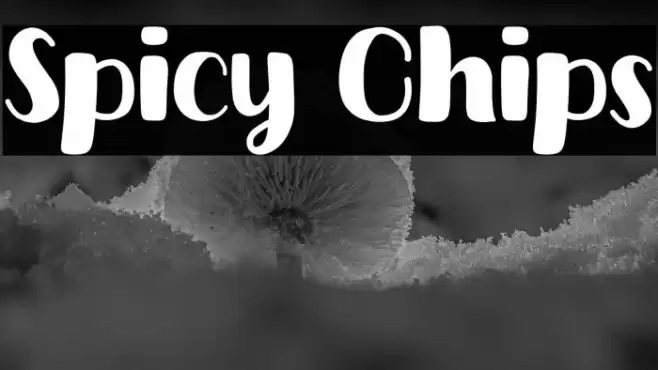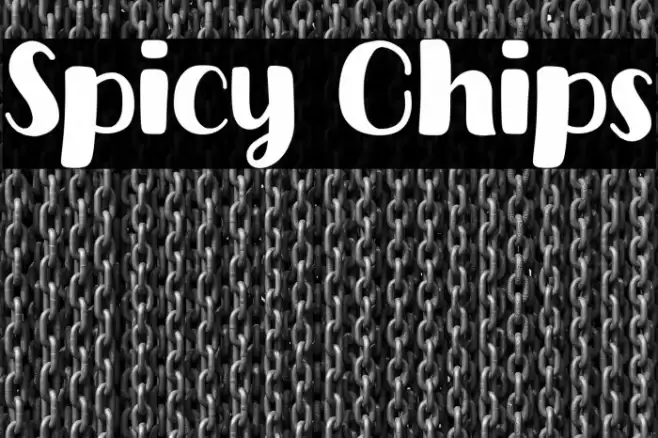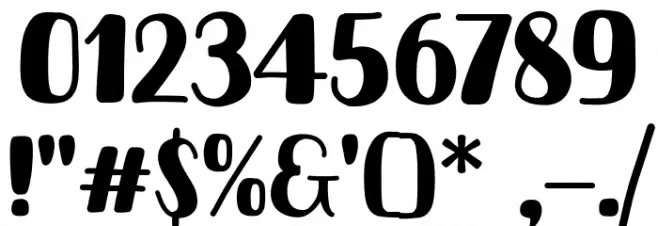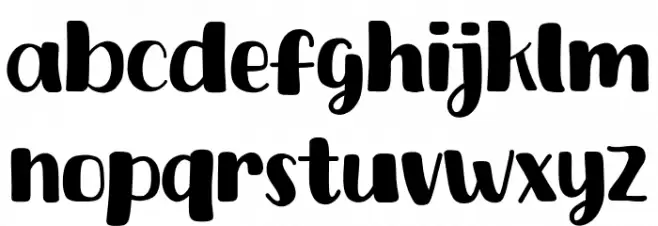
Spicy Chips Font
Spicy Chips Description
This font features a playful and bold style with a handwritten touch, characterized by its thick strokes and rounded edges. The uppercase letters are slightly taller than the lowercase, maintaining a consistent width throughout. The numerals are equally bold, with a slight slant that adds to the dynamic feel. Special characters are creatively designed, maintaining the overall whimsical aesthetic. The font's unique personality makes it suitable for projects that require a fun and engaging look.
A bold, playful handwritten font with thick strokes and rounded edges from Uncategorized fonts.
- Proposed Projects: Ideal for children's books, playful branding, greeting cards, and social media graphics.
- Overall Style: Playful
- Use Case: Logos, Headlines, Posters